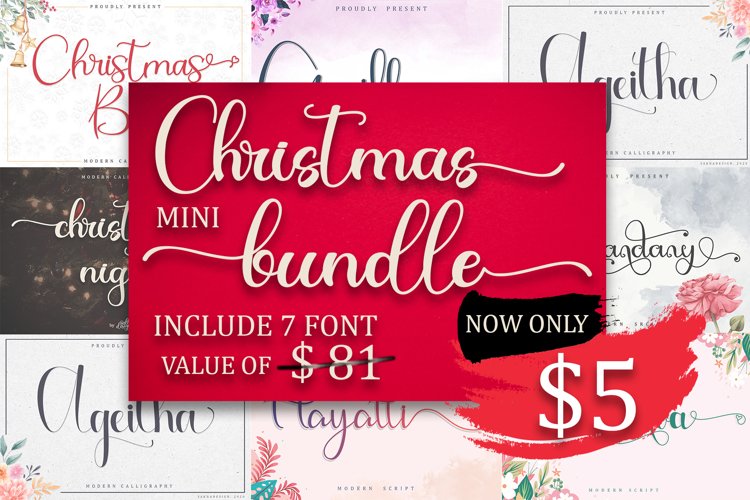
Christmas and Halloween Font Bundle
This font can make your writing and brand elegant or beautiful is great for unique branding, photo overlays, watermark, greeting cards, posters, business cards, invitations, weddings, photography, fashion, apparel, letter, stationery, etc.
A wide range of swashes (a-z), alternates (a-z), ligature, and support multilingual are included so that you can give your logo or name a custom, hand-calligraphy look.